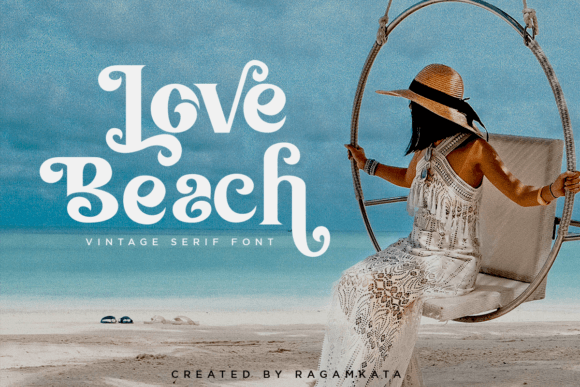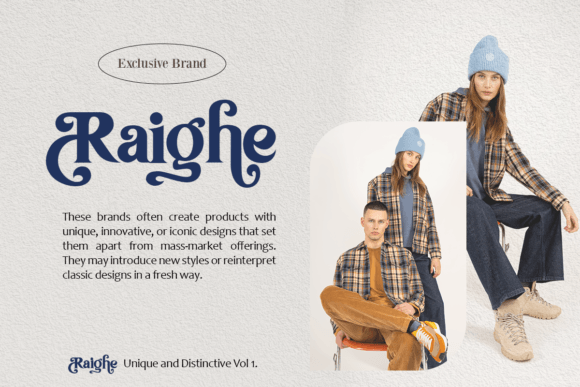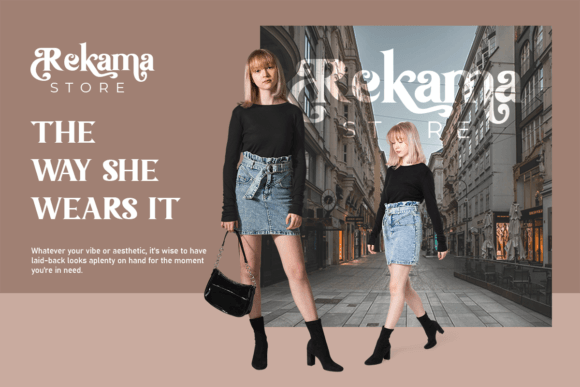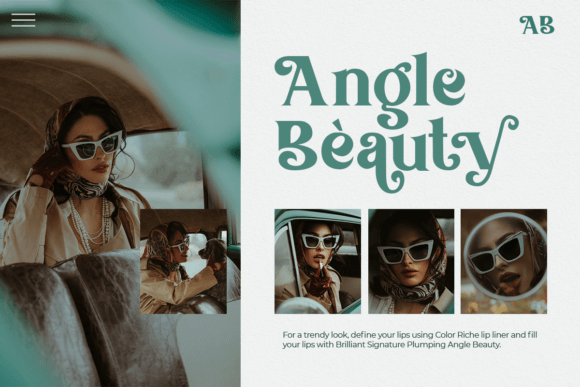
Love Beach Font: A Groovy Vintage Serif for Titles & Branding
About the Love Beach Font
The Love Beach Font is here to transform your projects with its distinctive character and style. Love Beach is a Vintage Serif Font with a touch of modernity. It looks amazing at display sizes and is easily readable in text size. Olive Village comes with access to your OpenType features, and a large selection of alternate glyphs.
Love Beach is a display font made mainly for headlines, titles, and other short texts and is well-suited for advertising, vintage mood boards, branding, logotypes, packaging, titles, editorial design, and modern and vintage design.
Its vintage-inspired serifs lend a touch of nostalgic charm, making it ideal for projects requiring a balance of classic elegance and contemporary appeal. Love Beach excels in branding applications, particularly for lifestyle brands, boutiques, or products with a retro aesthetic. Use it effectively for headlines, logos, short taglines, and packaging designs. Avoid using it for large blocks of body text or UI elements where high legibility at smaller sizes is paramount.
For optimal visual harmony, pair Love Beach with clean sans-serif fonts like Montserrat or Open Sans for body copy. A playful script font such as Pacifico could complement its vintage feel in specific applications, while a geometric sans-serif like Futura would provide a striking contrast, ideal for emphasizing key elements within a design.
The font projects a personality that is both sophisticated and approachable; friendly yet undeniably stylish. This makes it suitable for brands that wish to convey a sense of refined nostalgia without appearing dated.
Love Beach Font Usage Examples
Love Beach Font Example